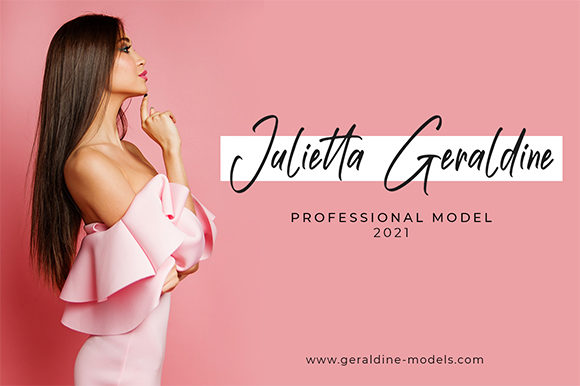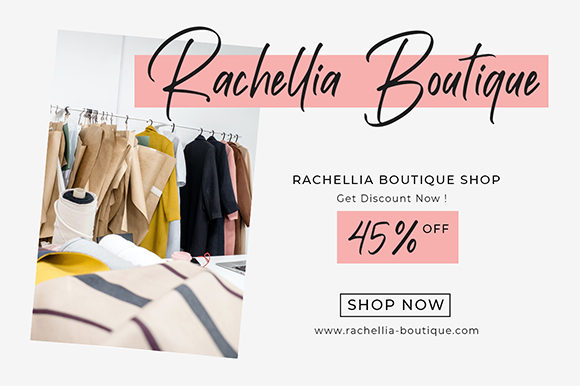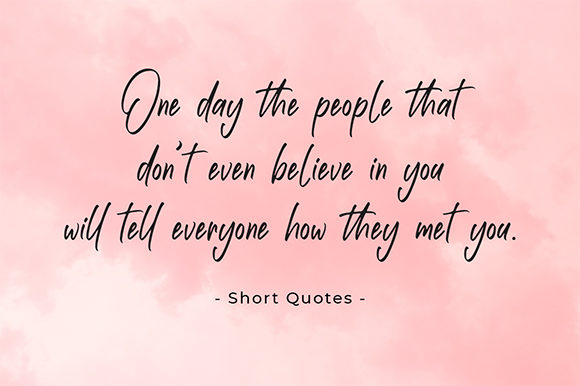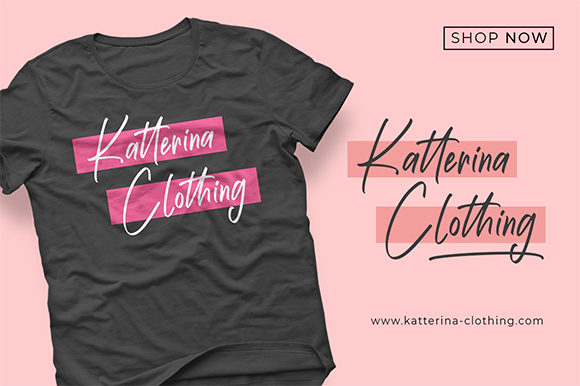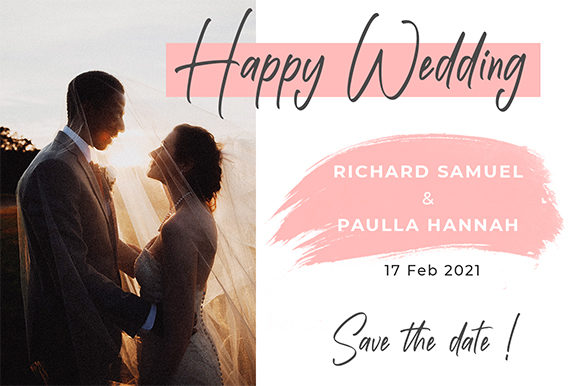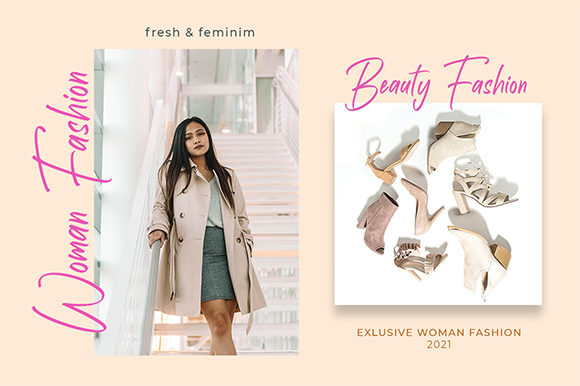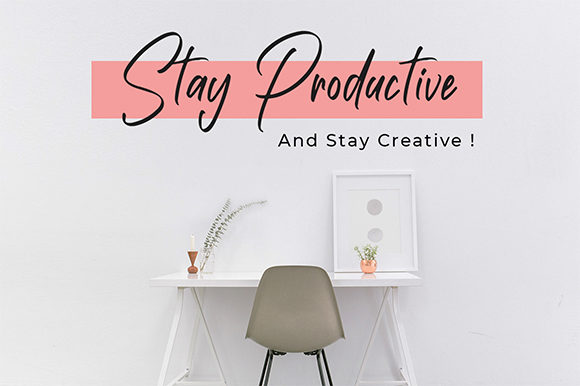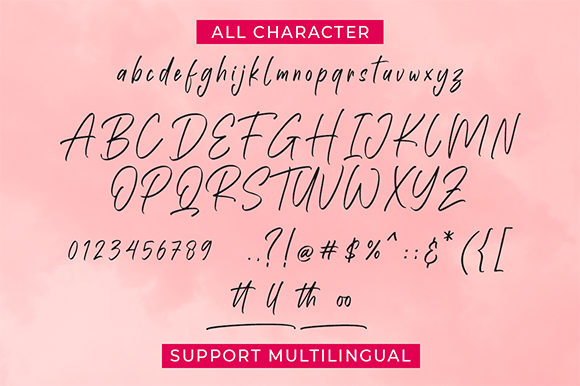
Hello Katterine Font
About Hello Katterine Font
Hello Katterine is a charming and elegant handwritten font that captures the essence of simplicity and authenticity. With its delightful and natural style, it adds a touch of warmth and personality to any design. Whether you’re creating logos, branding materials, invitations, or social media graphics, Hello Katterine will bring a unique and captivating charm to your projects.
The font’s simplicity is its strength, allowing it to shine in a wide range of design contexts. Its clean and legible letterforms make it versatile and suitable for various applications. The raw authenticity of Hello Katterine adds a touch of organic beauty, making it ideal for projects that seek a genuine and heartfelt aesthetic.
Hello Katterine’s elegant feel is derived from its carefully crafted letterforms. Each character has been meticulously designed to maintain a harmonious balance between simplicity and elegance. The result is a font that exudes a sense of refinement and sophistication while retaining its approachable and friendly nature.
Whether you’re working on digital or print designs, Hello Katterine will effortlessly complement your creative ideas. From wedding stationery and greeting cards to blog headers and product packaging, this font will add a touch of elegance and uniqueness to your projects.
Fall in love with Hello Katterine’s raw authenticity and allow it to elevate your designs to new heights. Its simplicity and elegance make it a perfect choice for those seeking a font that exudes charm and personality. With Hello Katterine, you can create outstanding designs that resonate with your audience and leave a lasting impression.
In summary, Hello Katterine is a sweet and simple handwritten font with an elegant feel. Its raw authenticity and genuine charm make it an ideal choice for a wide range of design projects. Embrace its uniqueness and let it inspire you to create outstanding and captivating designs.